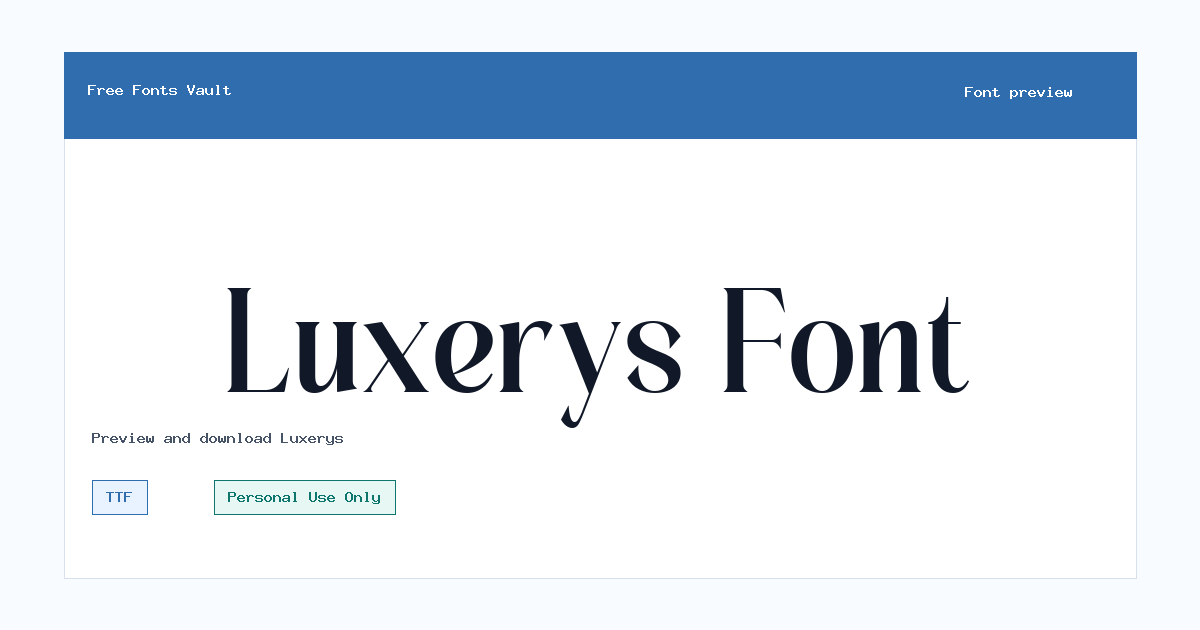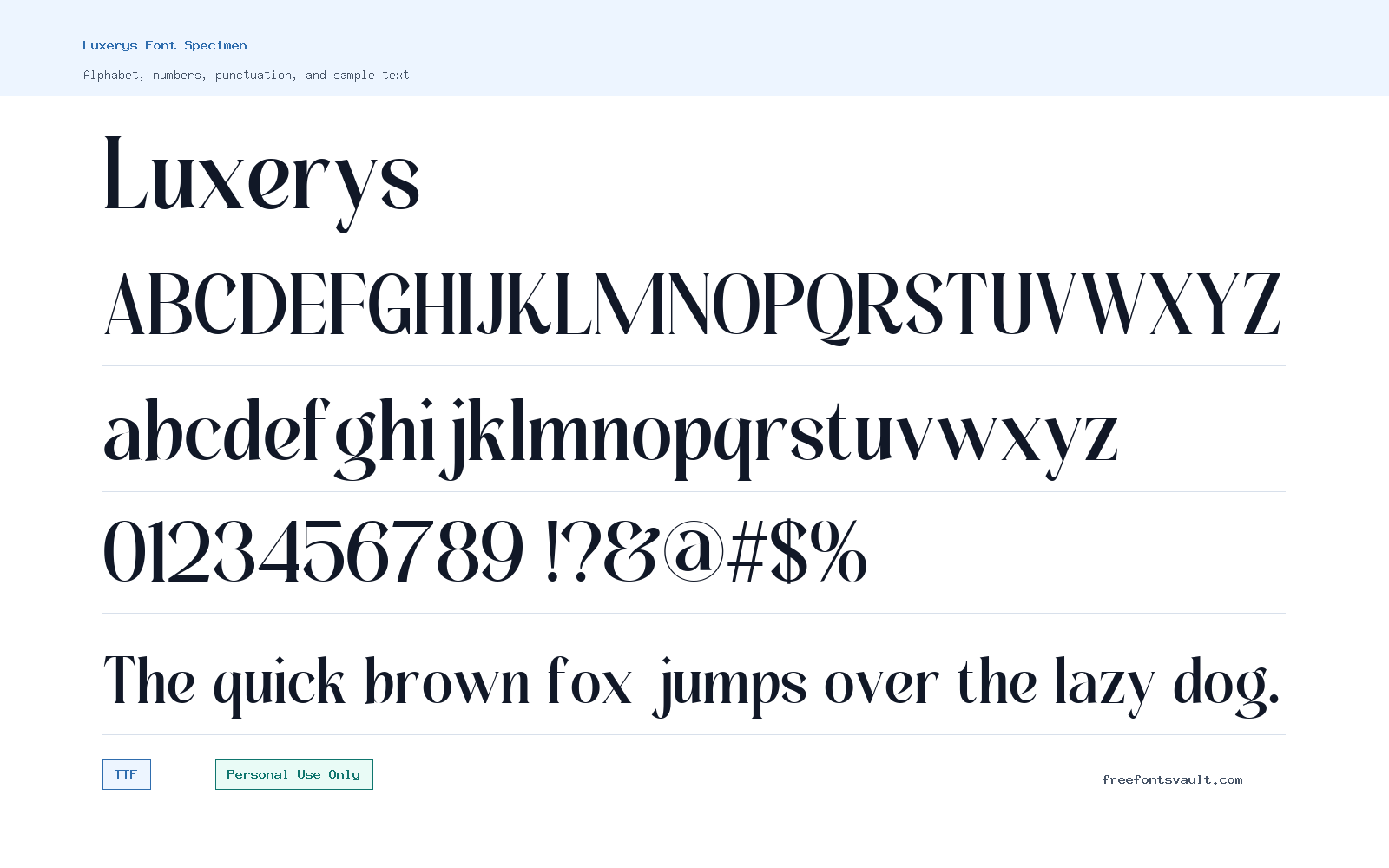
Luxerys
Luxerys Font
• Designer Pikgura
Luxerys font.
Luxerys is a serif font for personal projects where you want a polished, decorative look without making the text feel too heavy.
About Luxerys Font
Luxerys works best as a display serif rather than a long-reading text face. Its name and serif classification point toward a refined visual style, so it is a good font to test for short phrases, elegant headings, invitation-style wording, logo drafts, boutique graphics, social media titles, and personal branding mockups. Use the preview tool with your own words before downloading, especially if your design depends on a specific letter combination, number style, or punctuation mark.
For best results, keep Luxerys in larger sizes where the serif details can be seen clearly. It may look graceful in names, initials, product-style labels, quote graphics, and title layouts, but it should be tested carefully for paragraph text, small captions, and dense mobile layouts. If you pair it with another font, choose a clean sans serif or a quiet text serif for supporting copy so Luxerys can stay focused on the headline or accent role. The download includes regular-weight font files in both TTF and OTF formats, which gives you flexibility for common design and desktop font projects.
• Serif display style suited to short, polished text settings
• Useful for testing headings, names, invitations, labels, and personal design mockups
• Best used at larger sizes where the letter details remain clear
• Personal invitation designs and greeting cards
• Elegant headings, titles, and quote graphics
• Boutique-style labels or packaging mockups
• Personal logo drafts and name-based designs
• Social media posts that use short display text
The designer is listed as Pikgura. No foundry name is listed for this font page.
Who designed Luxerys?
Luxerys is listed with Pikgura as the designer.
What kind of designs is Luxerys good for?
Luxerys is best tested for short display text such as headings, invitations, names, labels, quote graphics, and personal logo drafts.
Can I use Luxerys for body text?
You can test it, but it is better suited to larger display use. For paragraphs, pair it with a simpler font that stays readable at small sizes.